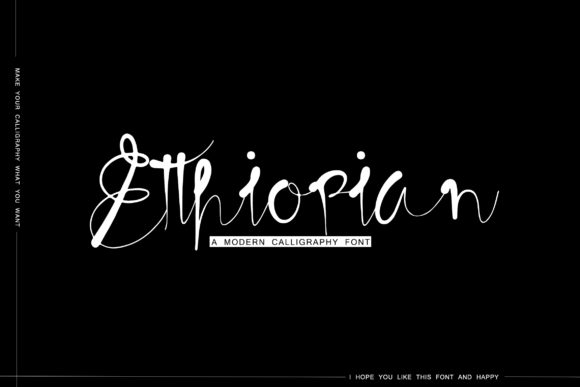
**Introducing 'Etthiopian' Script: Elevate Your Creations with Grace and Elegance**
Step into a world of enchanting calligraphy with 'Ethiopian', the epitome of modern sophistication. Its exquisite lines dance across the page like a master's brushstrokes, evoking a sense of timeless elegance and ethereal charm. Perfect for capturing the essence of your signature, wedding invitations, or branding projects, this font will transform your words into breathtaking works of art.
With 'Ethiopian', you'll unlock a seamless flow of glyphs and swashes thanks to its PUA encoding. Effortlessly add a touch of whimsical grace to your designs as this font takes you on an artistic journey where creativity knows no bounds. Embrace the magic of 'Ethiopian' and elevate your creations to new heights, leaving an unforgettable impression that will captivate all who behold it.